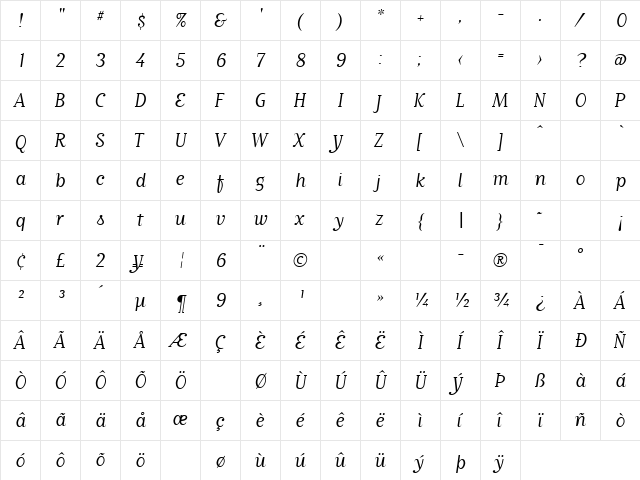
MatrixScriptBookLining Regular Font Preview
MatrixScriptBookLining Regular
Design Context for MatrixScriptBookLining Typeface
MatrixScriptBookLining brings a calligraphic fluidity to the page — its connecting strokes and expressive curves give it an unmistakably human quality.